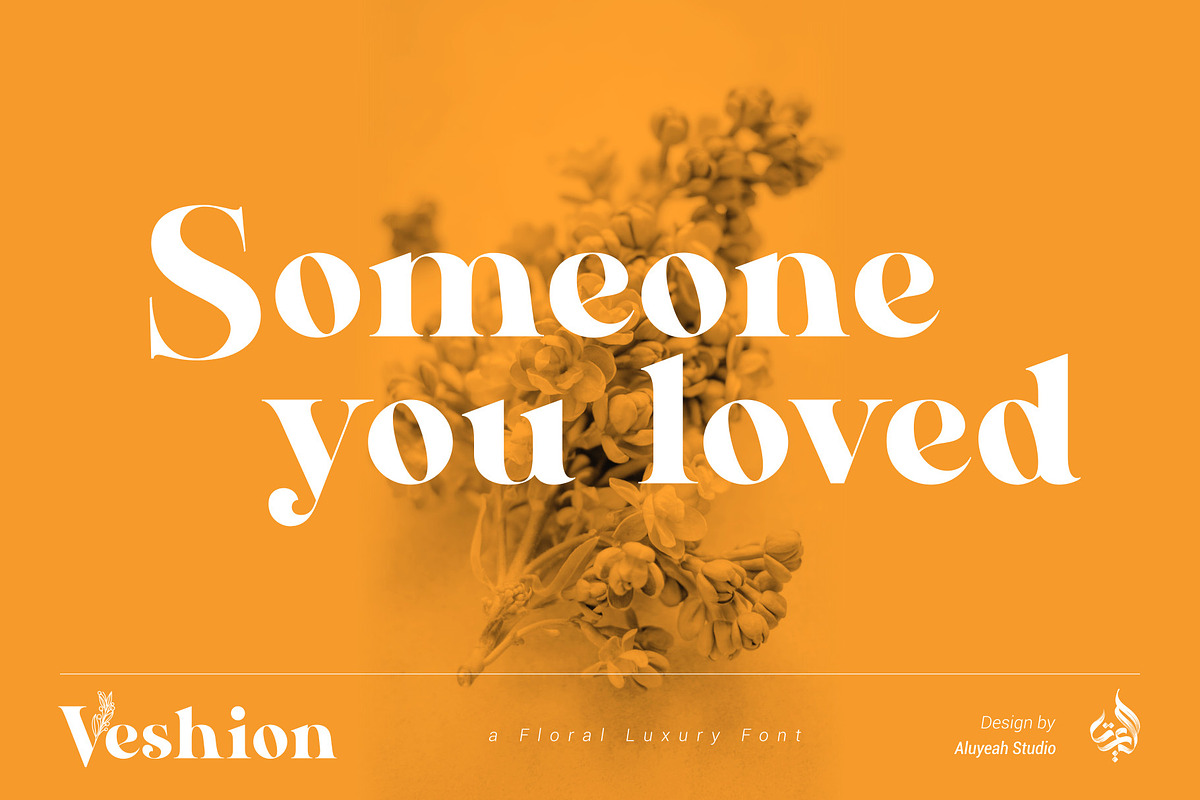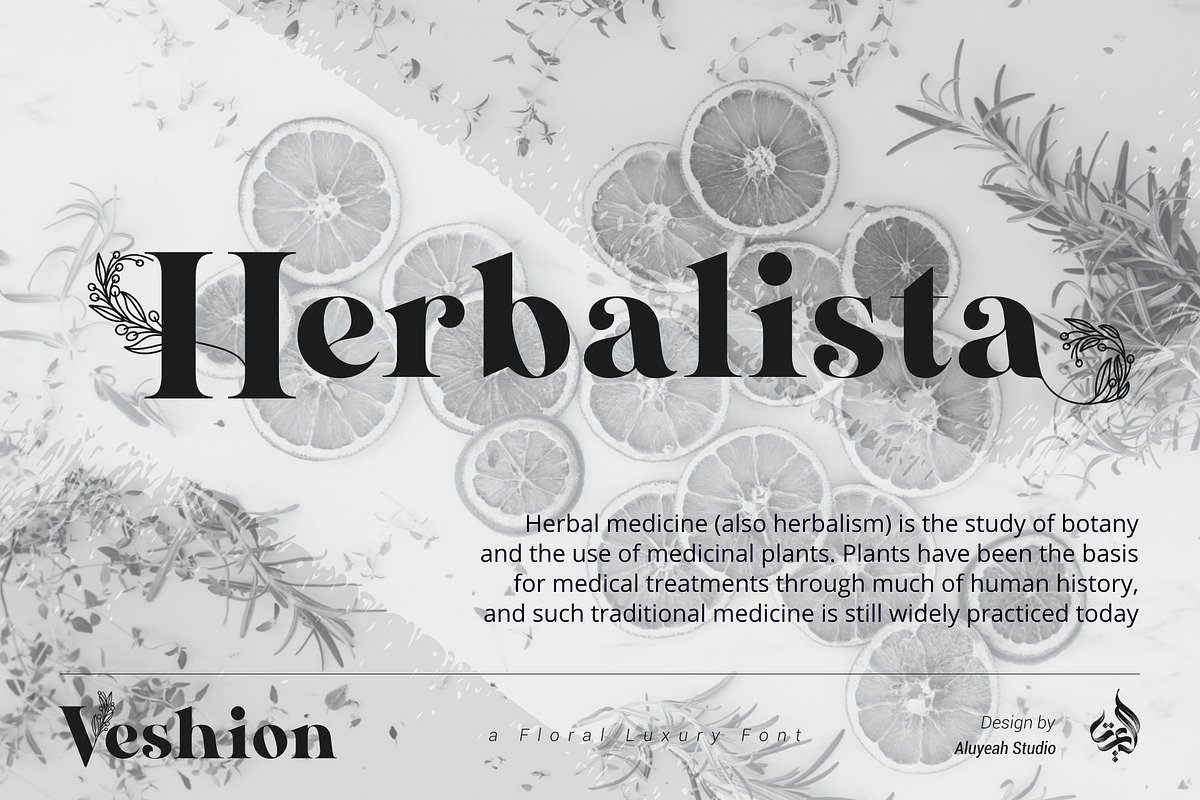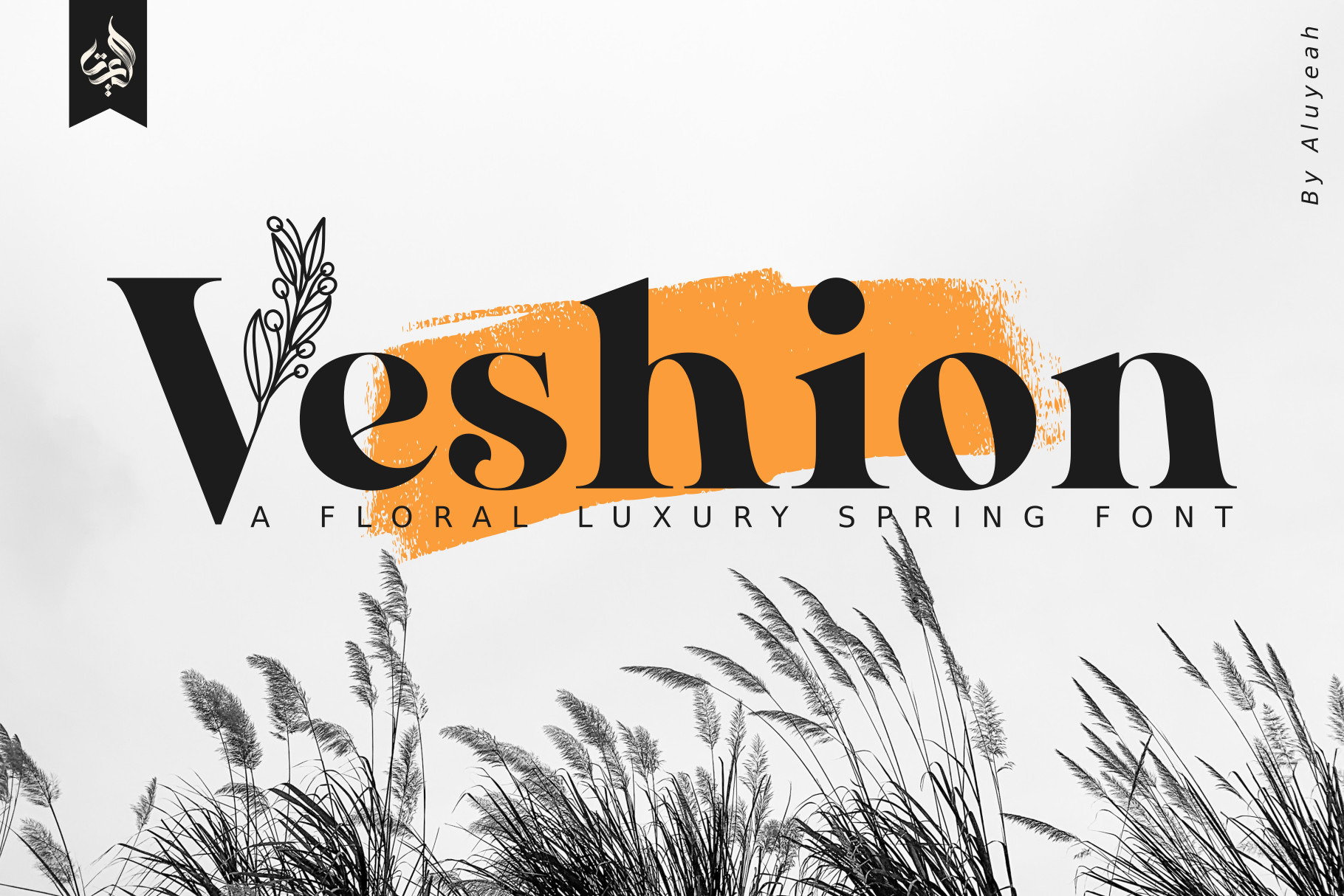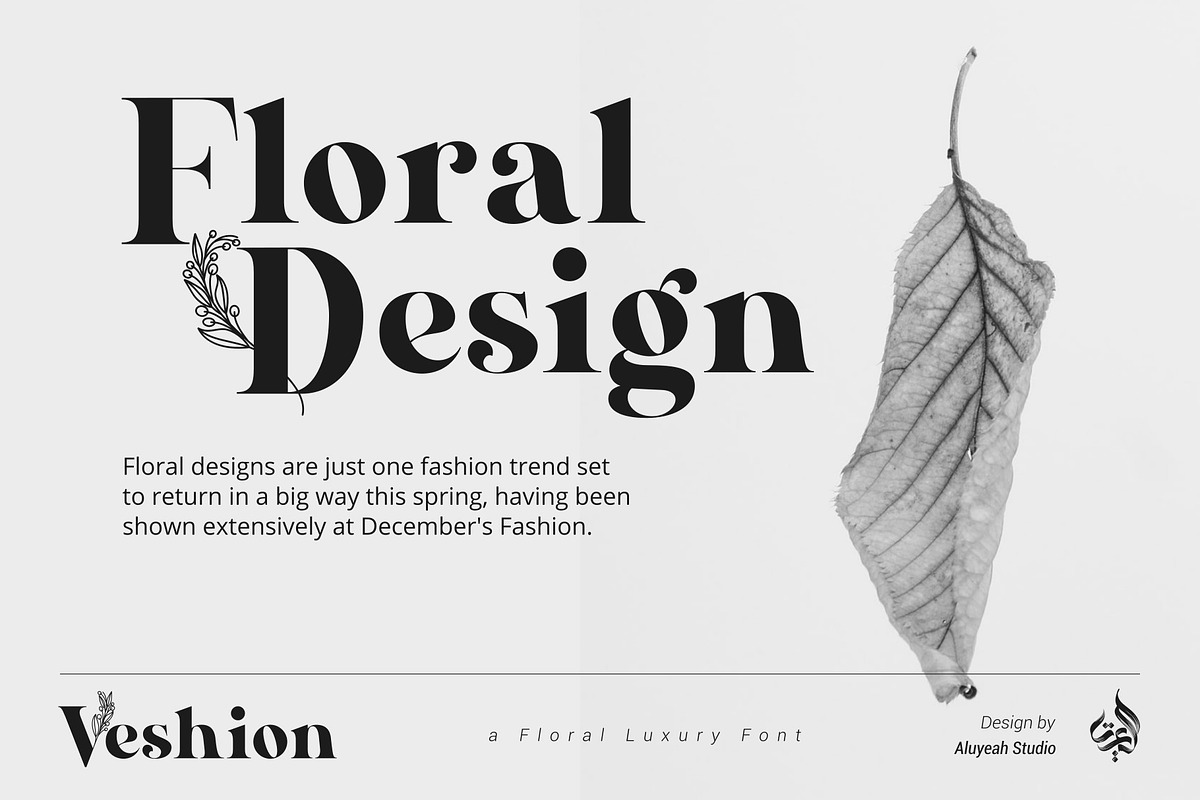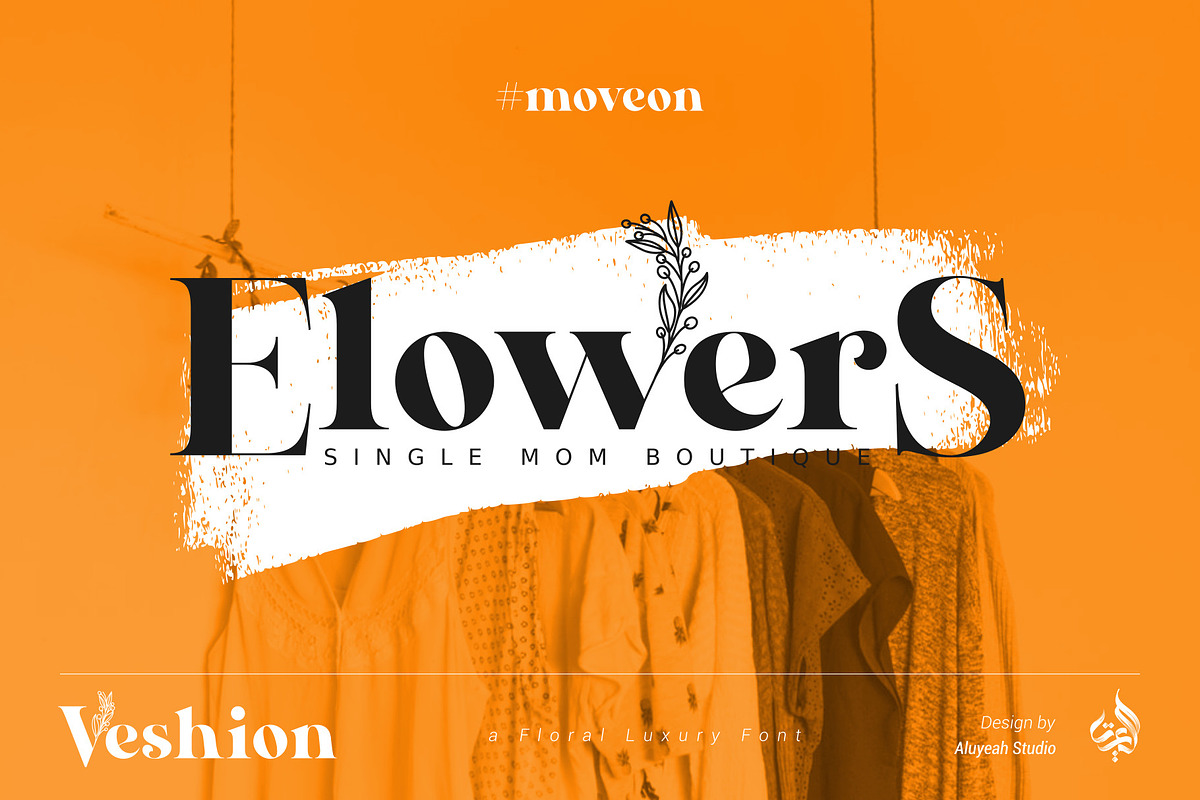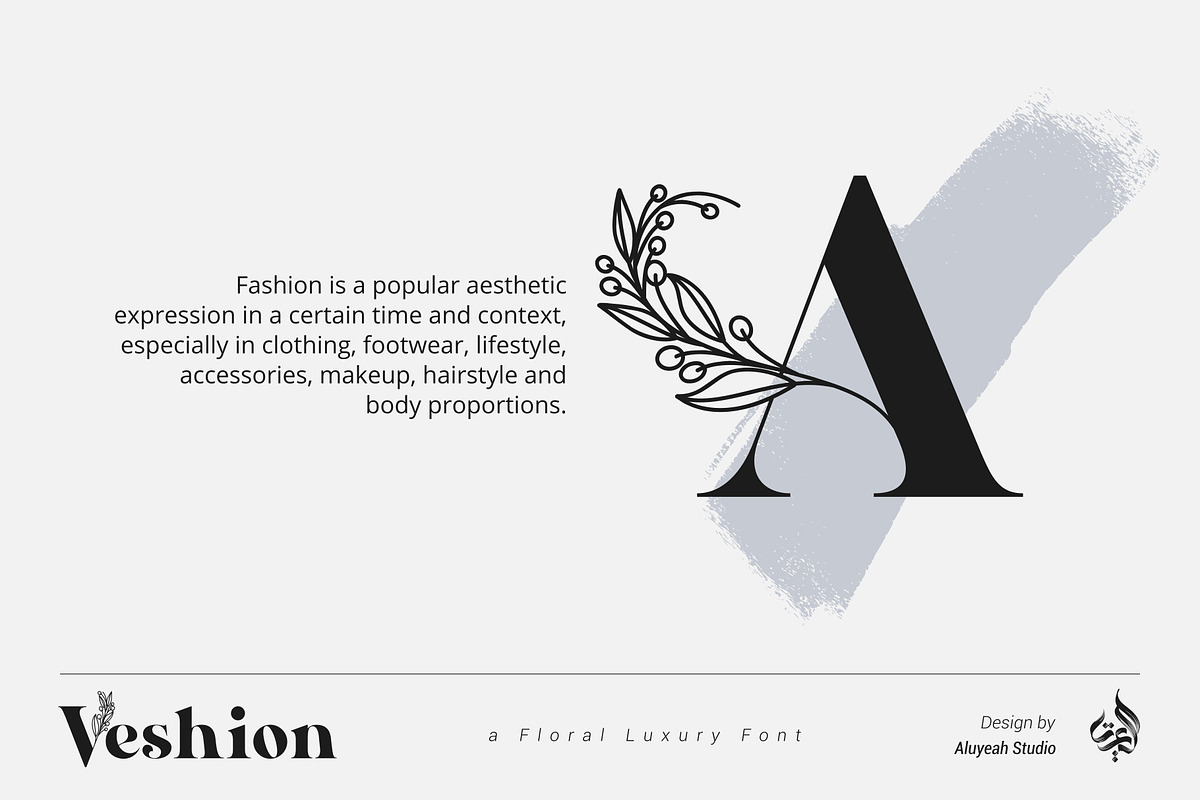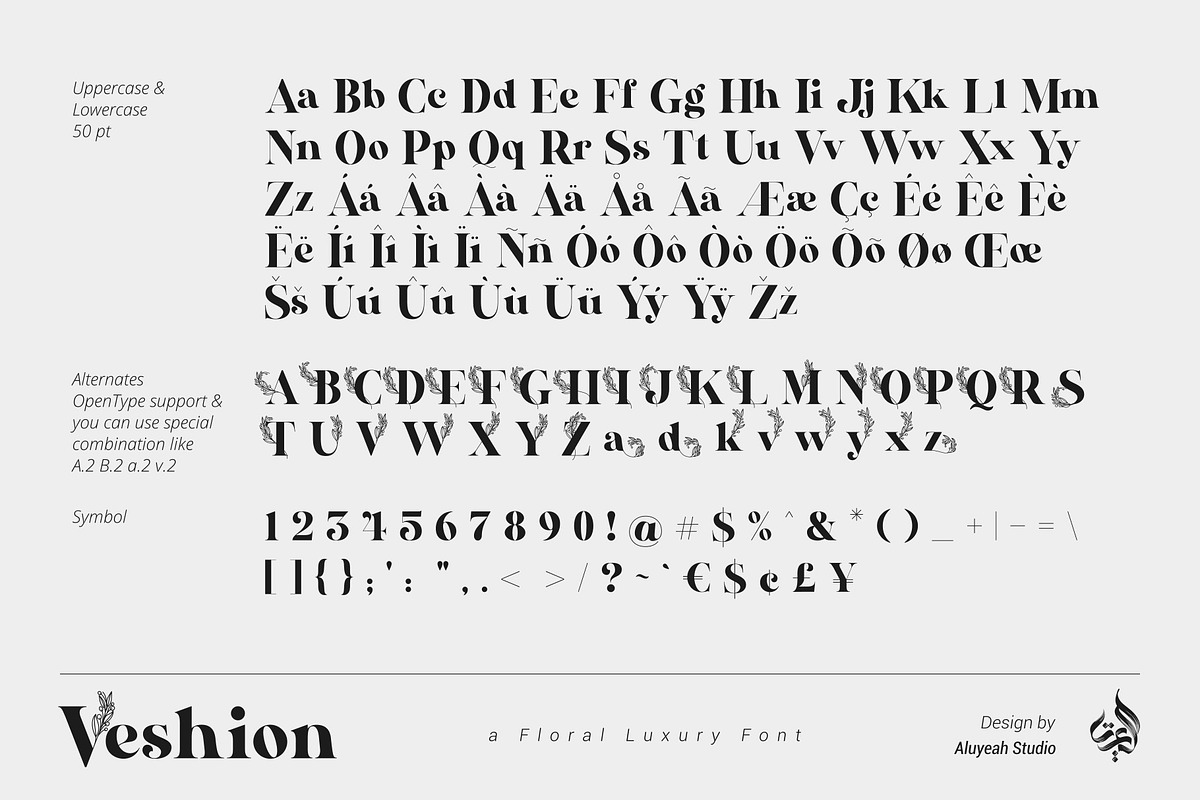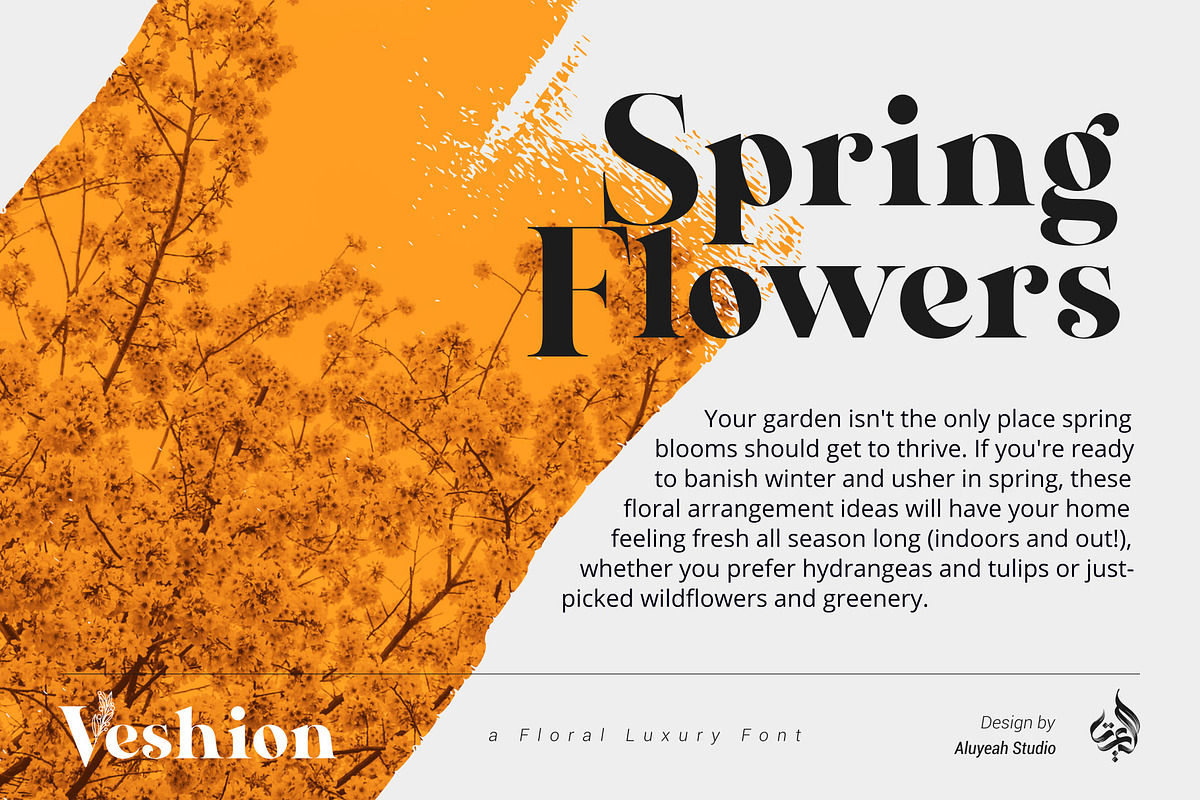
Veshion Floral Display Font
Veshion is an floral luxury font. It’s fashionable, elegant, decorative font. Floral ornament letters are ideal for your wedding monograms and logos, fashion product, herb, back to nature vibe, organic vibe, and many more.
This typeface features 190+ characters with some language adaption that is guaranteed to give your project a competitive edge.
Use this font for wedding invitations, branding, packaging, magazines, florist shops, social media, restaurant menus, greeting cards, headers and many more.
- OpenType support
- Multilingual support (15 languages)
- Super Easy to Use alternates – It’s OpenType support but you can easily call alternates character using special combination like A.2 B.2 a.2 v.2 so you don't need special software. To get results like the preview just type V.2eshion